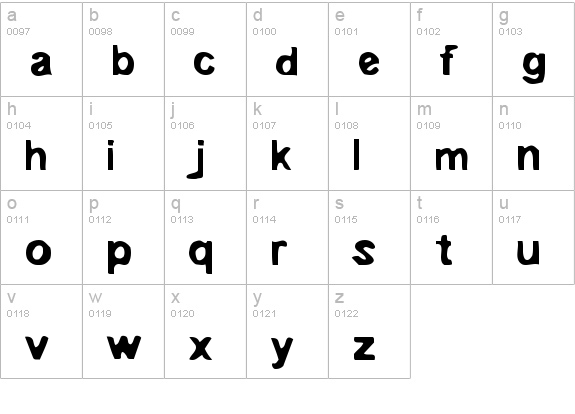
Embryonic Outside Font Details
Embryonic Outside font is a captivating and unique typeface that exudes a sense of creativity and modernity. With its intricate design and distinctive style, this font is perfect for adding a touch of sophistication to any project. The sleek lines and futuristic aesthetic of Embryonic Outside make it a versatile choice for a wide range of design applications, from branding to editorial design. What sets Embryonic Outside font apart is its ability to seamlessly blend elegance with a contemporary edge, making it a standout choice for designers looking to make a statement. Whether you're working on a logo, website, or print materials, this font is sure to elevate your design to the next level. The best part? Embryonic Outside font is completely free to download at FontsMarket.com, allowing you to access this high-quality typeface without breaking the bank. Don't miss out on the opportunity to enhance your projects with the striking beauty of Embryonic Outside font – download it today and see the difference it can make in your designs.